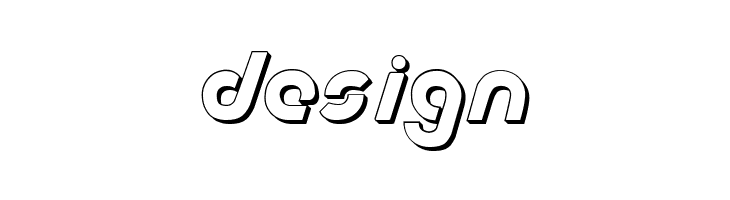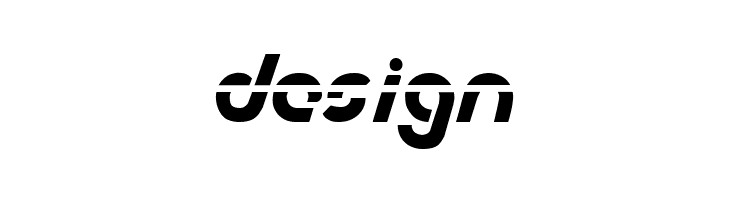
Halloween Before Christmas Font
- Font: Halloween Before Christmas
( Fonts by Iconian Fonts - Daniel Zadorozny )
A bold, shadowed font with a modern, playful aesthetic and geometric design.